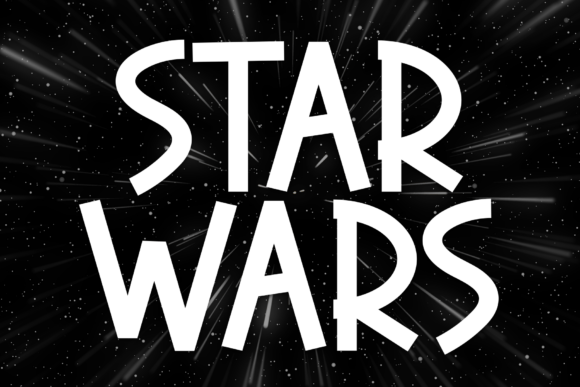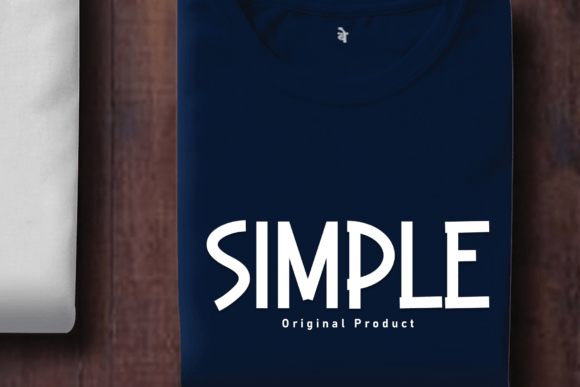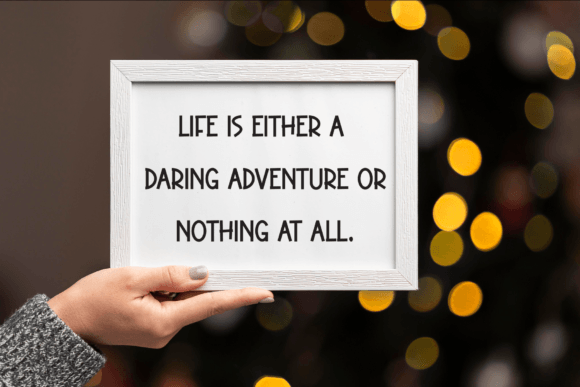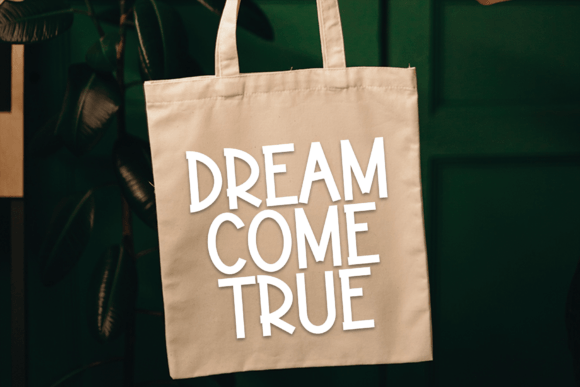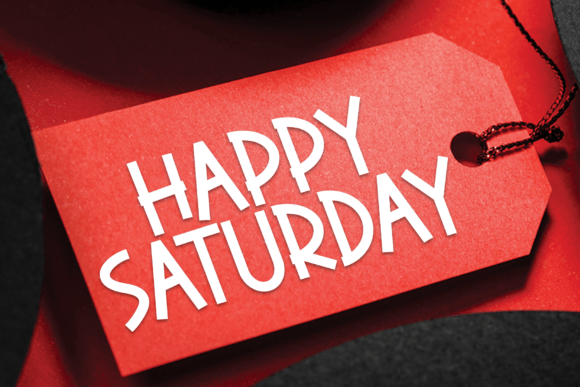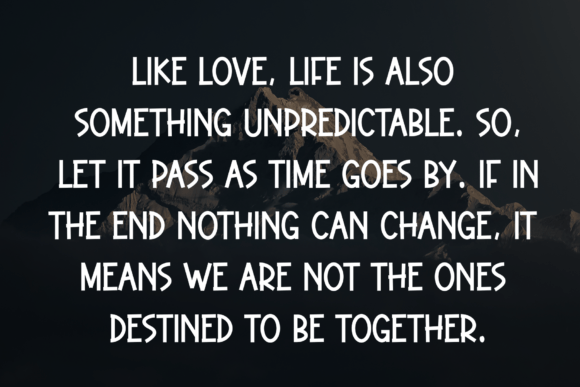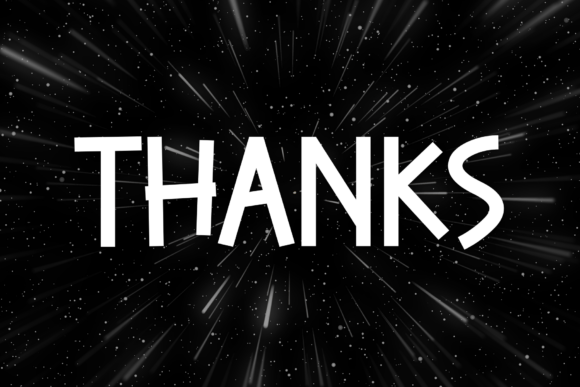
Star Wars Font
The Star Wars display font is a bold and dramatic typeface. It features sharp edges and strong lines, making it look futuristic and adventurous. This font is perfect for titles, posters, and any designs.